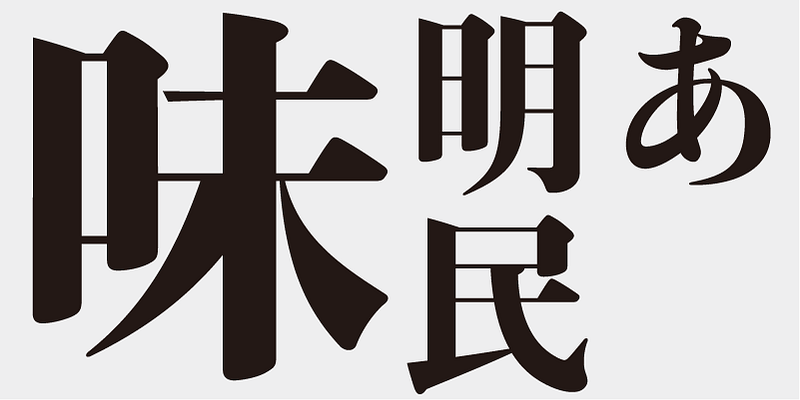
AB Ajimin Min/EB Font Free Download is an elegant extra bold Mincho-style serif typeface that blends classical Japanese calligraphy with modern typographic design. With its high contrast between thick and thin strokes, pronounced vertical stress, and sharply defined serifs, AB Ajimin Min/EB is perfect for editorial headlines, premium branding, book covers, and cultural or literary projects seeking both visual strength and refined detail.
The "Min" style emphasizes traditional aesthetics with a soft, literary presence—making it ideal for sophisticated design that honors heritage while embracing clarity. Supporting both Japanese and Latin scripts, AB Ajimin Min/EB is well-suited for bilingual or international content.